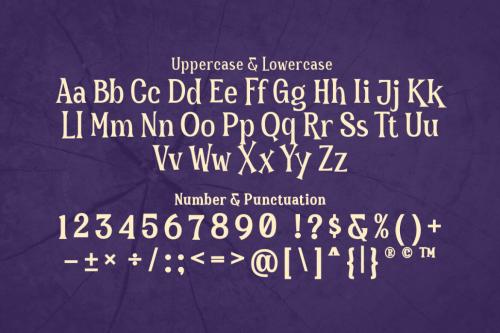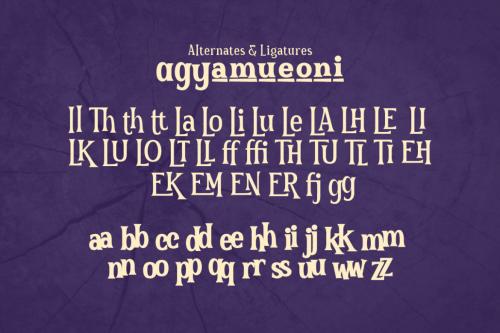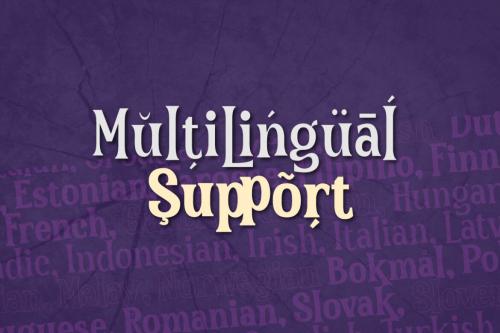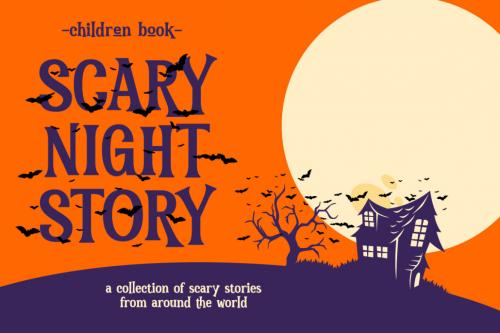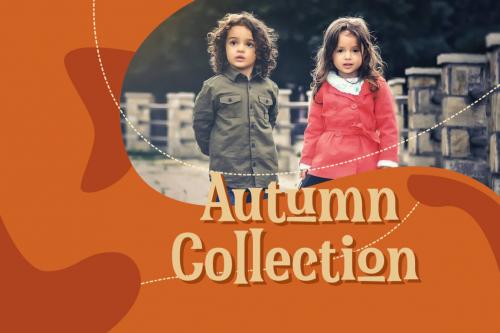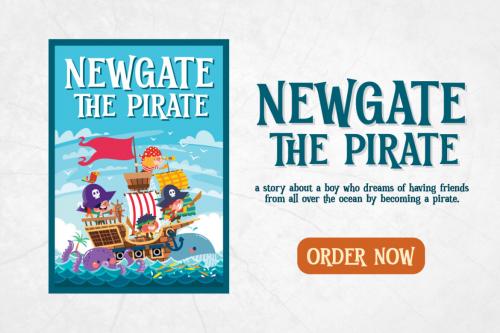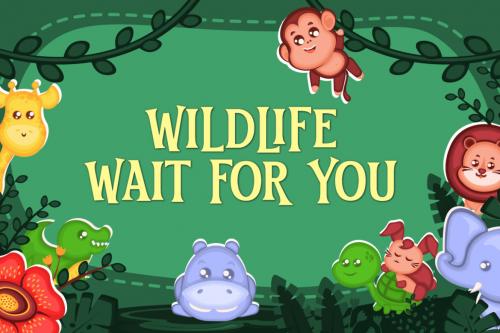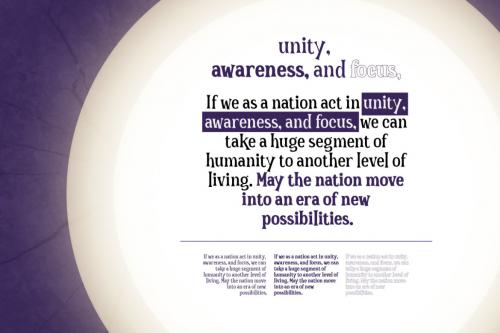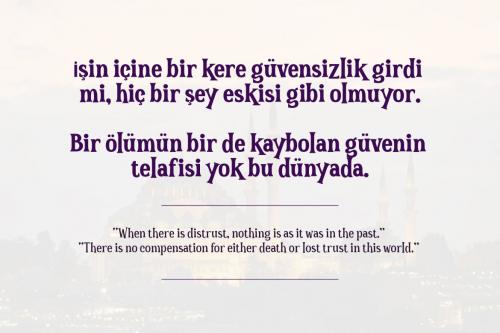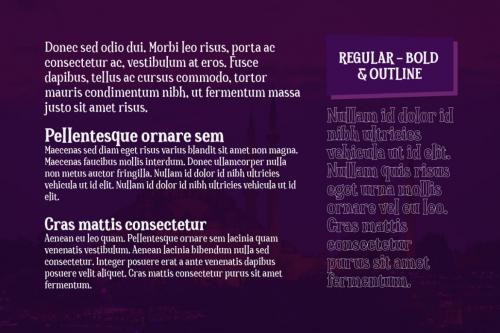
The Hoca Display Serif Font made with unique typeface font and also has vintage serif display font. This font is suitable for any branding of your design needs, project, labeling, clothing, movie sceen, poster, studio brand, holloween design, magic design, kids design, movie title, gigs, invitations, social media posts, clothing, any poster desing, cafeu002Fresto sign, album covers, logos, and much more.
Features;
– 3 Styles; Regular, Bold and Outline
– Uppercase, Lowercase, Number, and Punctuation
– Alternates and Special Ligatures
Mültîlíñgúãl Sùppört;
Albanian, Basque, Breton, Chamorro, Danish, Dutch, English, Finnish, French, Frisian, Galician, German, Italian, Malagasy, Norwegian, Portuguese, Spanish, Alsatian, Aragonese, Arapaho, Arrernte, Asturian, Aymara, Bislama, Cebuano, Corsican, Fijian, French creole, Genoese, Gilbertese, Greenlandic, Haitian creole, Hiligaynon, Hmong, Hopi, Ibanag, Iloko ilokano, Indonesian, Interglossa glosa, Interlingua, Irish gaelic, Jerriais, Lojban, Lombard, Luxembourgeois, Manx, Mohawk, Norfolk pitcairnese, Occitan, Oromo, Pangasinan, Papiamento, Piedmontese, Potawatomi, Rhaeto romance, Romansh, Rotokas, Sami lule, Samoan, Sardinian, Scots gaelic, Seychelles creole, Shona, Sicilian, Somali, Southern ndebele, Swahili, Swati_swazi, Tagalog filipino pilipino, Tetum, Tok pisin, Uyghur latinized, Volapuk, Walloon, Warlpiri, Xhosa, Yapese, Zulu, Latinbasic, Ubasic,